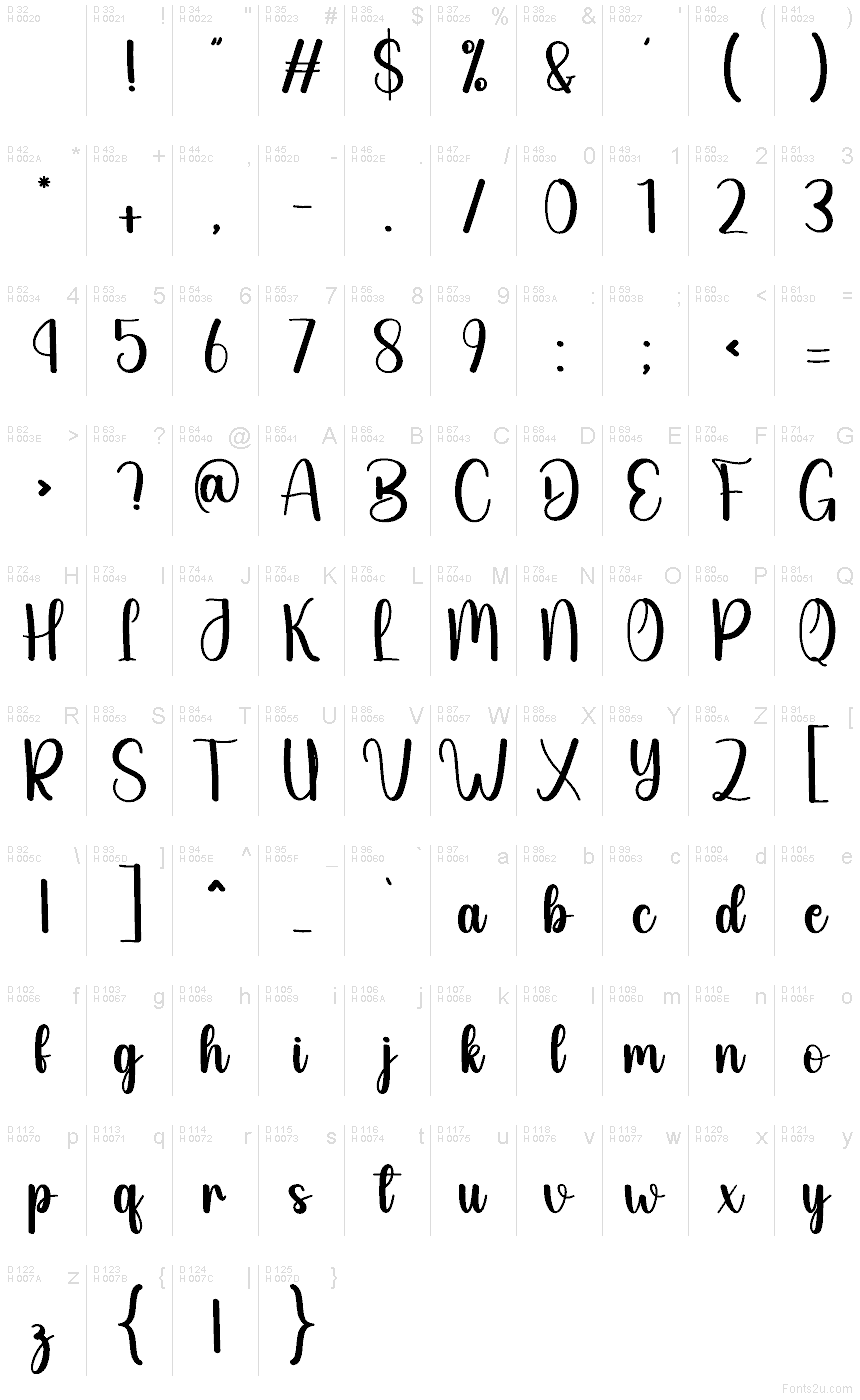
Snowy Chimes
Snowy Chimes font is a modern handwritten typeface by Andi Moz with expressive characters that take full advantage of the brush style. Each letter is graceful and flowing on its own, but when typed to form a word or sentence, they magically transform into one smooth signature-like stroke with rare elegance.